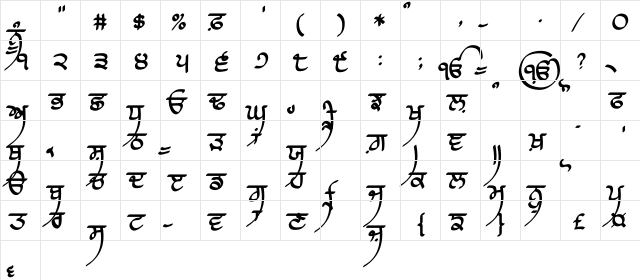
Raaj Script 5 Medium Medium Script
| Foundry | Paul Alan Grosse |
| Designer | Paul Alan Grosse |
Design Context for Raaj Script 5 Medium Typeface
Raaj Script 5 Medium flows with the natural rhythm of handwritten lettering, making it ideal for designs that call for warmth and personal expression.
Font Pairing: Combine Raaj Script 5 Medium with a simple geometric sans for maximum contrast — the tension between flowing curves and clean structure is a classic typographic pairing.
Pro Tip: Use Raaj Script 5 Medium for short runs of text — names, titles, or taglines. Extended body copy in script faces tires the eye quickly.